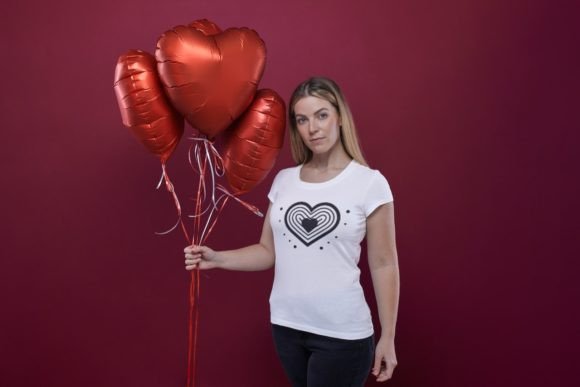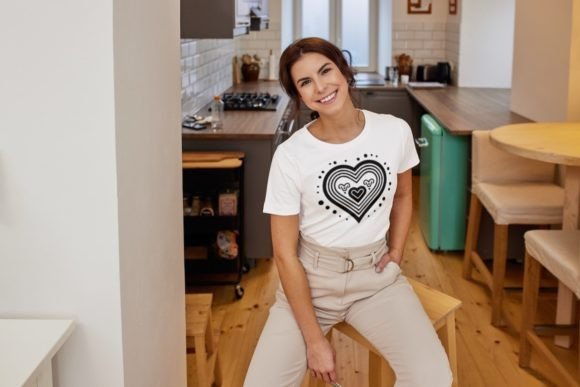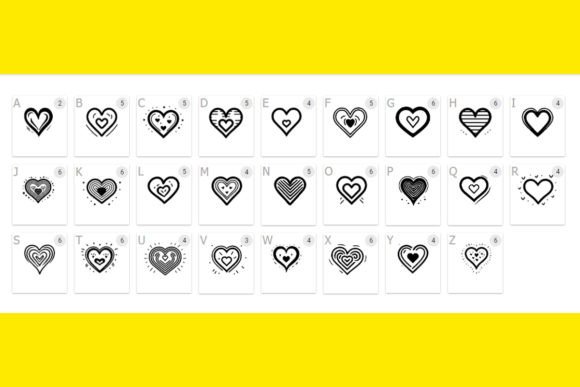
Cute Heart Font: The Perfect Addition to Your Design Arsenal
Are you a designer or crafter looking for a unique and versatile font to add a touch of whimsy to your projects? Look no further than the Cute Heart Font! This adorable dingbats font features 26 letters, each carefully crafted to bring a smile to your face. In this article, we’ll dive into the world of Cute Heart Font, exploring its features, uses, and benefits.
What is Cute Heart Font?
Cute Heart Font is a simple, yet charming dingbats font that showcases 26 letters, each designed with a heart theme. The font is perfect for designers and crafters who want to add a personal touch to their projects. Whether you’re creating a custom shirt, decorating a planner, or designing a greeting card, Cute Heart Font is the ideal choice.
Features of Cute Heart Font
So, what makes Cute Heart Font so special? Here are a few of its standout features:
- 26 unique letters: Each letter of the alphabet has been carefully designed with a heart theme, making it perfect for a wide range of projects.
- Versatile: Cute Heart Font can be used in various applications, from digital designs to print materials.
Uses of Cute Heart Font
The versatility of Cute Heart Font is one of its most significant advantages. Here are some of the many ways you can use this delightful font:
- Shirt patterns: Add a touch of personality to your custom shirts with Cute Heart Font.
- Bag designs: Create adorable bags with Cute Heart Font, perfect for everyday use or as a gift.
- Mug designs: Make your mugs stand out with Cute Heart Font, ideal for a fun and quirky gift.
- Greeting cards: Add a personal touch to your greeting cards with Cute Heart Font, perfect for special occasions.
- Planner decorations: Decorate your planners with Cute Heart Font, making them a joy to use.
- Special occasion card adornments: Use Cute Heart Font to create beautiful adornments for special occasion cards, such as weddings, birthdays, and anniversaries.
Benefits of Using Cute Heart Font
So, why should you choose Cute Heart Font for your projects? Here are a few benefits:
- Unique designs: Cute Heart Font offers unique and adorable designs that will set your projects apart.
- Time-saving: With Cute Heart Font, you can create professional-looking designs in no time.
- Easy to customize: The font is easy to customize, allowing you to adjust it to fit your project’s style and tone.
Tips and Tricks for Using Cute Heart Font
To get the most out of Cute Heart Font, here are a few tips and tricks:
- Experiment with colors: Try out different colors to match your project’s theme and style.
- Mix and match: Combine Cute Heart Font with other fonts and design elements to create a unique look.
- Use it in combination with images: Pair Cute Heart Font with images to create visually appealing designs.
In conclusion, Cute Heart Font is a versatile and charming dingbats font that’s perfect for designers and crafters. With its 26 unique letters, ease of use, and wide range of applications, it’s an ideal addition to your design arsenal. Whether you’re creating custom shirts, decorating planners, or designing greeting cards, Cute Heart Font is sure to bring a touch of whimsy and personality to your projects.